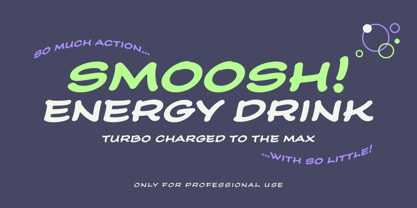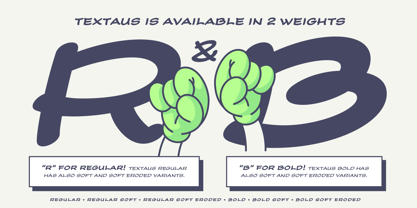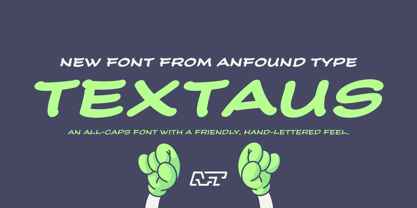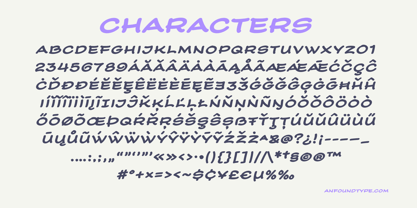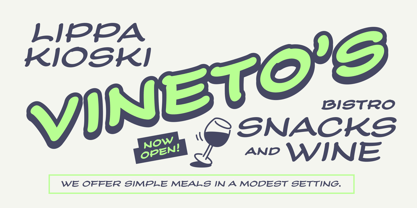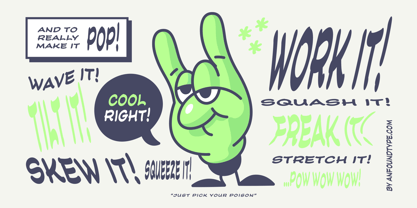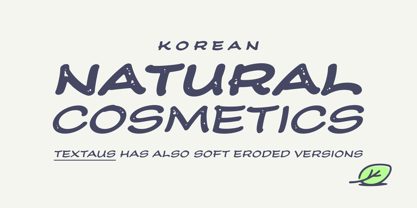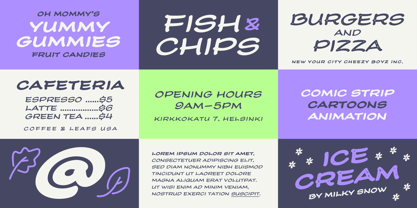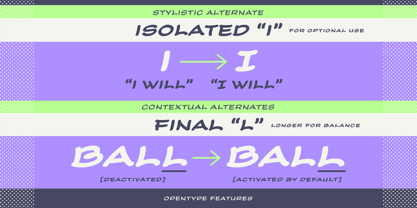
Textaus
by Anfound Type
The Textaus Font Family was designed by Antero Nuutinen and published by Anfound Type. Textaus contains 6 styles and family package options. More about this family
Anfound Type's new font, Textaus, is an all-caps font with a friendly, hand-lettered feel. It comes in two weights: Regular and Bold, each offering both soft and soft eroded variants. It includes a stylistic alternative for the letter 'I,' perfect for comic book designs and other creative uses. Additionally, Textaus features contextual alternates for the final 'L,' which is automatically activated. This version of 'L' is slightly elongated for visual balance, while a tighter version within words ensures better spacing and optimized negative space. Textaus is quietly simple, yet surprisingly flexible.
Designers: Antero Nuutinen
Foundry: Anfound Type
Anfound Type is a type foundry located in Helsinki, Finland. It was founded in 2023 by Antero Nuutinen, who is the sole operator. Antero's love for letters and lettering led him to pursue his passion full-time and start an independent type foundry to share his ideas with a wider audience. The goal of Anfound Type is to design soulful and functional typefaces that stand the test of time, occasionally featuring unconventional ideas. You can find Antero's script lettering on his Instagram page https://www.instagram.com/anteronuutinen/. He has also e.g. designed logos for Nickelodeon and Disney's animation shows, as well as custom fonts for a range of projects and clients. To view more of his lettering work, check out https://anteronuutinen.com.